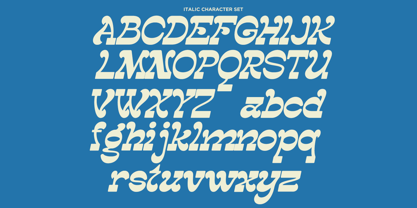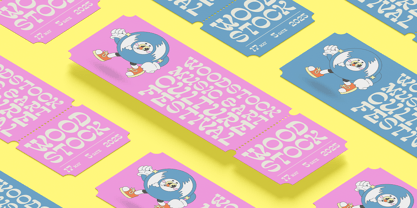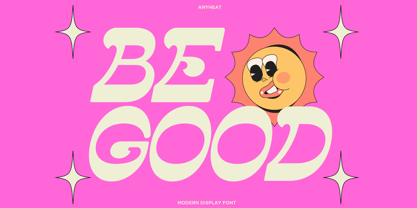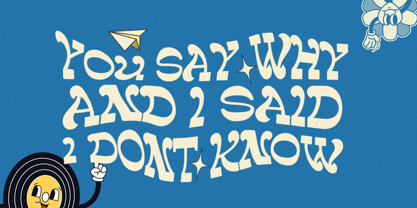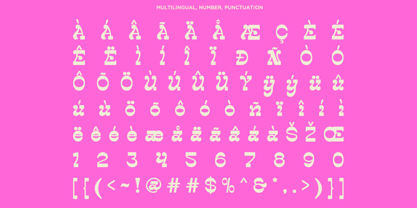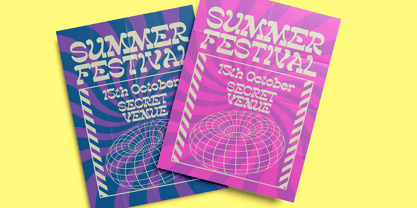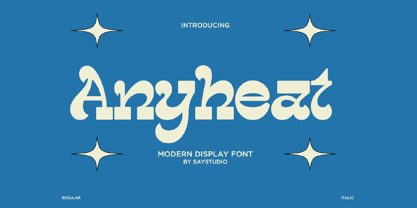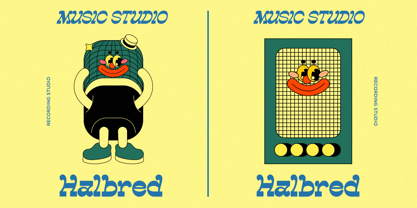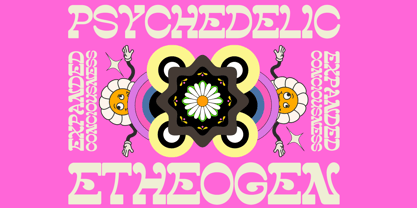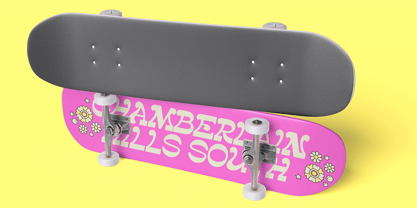
Anyheat
by Say Studio
The Anyheat Font Family was designed by Mussyayin and published by Say Studio. Anyheat contains 2 styles and family package options. More about this family
Anyheat is a bold and expressive modern display font that blends retro charm with contemporary design. Its unique character shapes—featuring playful curves, dramatic contrasts, and geometric block-style elements—make it perfect for eye-catching headlines, posters, branding, and editorial designs. The font exudes a groovy, vintage-inspired personality while maintaining modern legibility, ideal for creative projects that want to stand out. Available in both Regular and Italic styles, Anyheat brings warmth and energy to any visual composition. Anyheat Included : - Anyheat Regular - Anyheat Italic - Multilingual Support Thanks, Have a nice day Say Studio